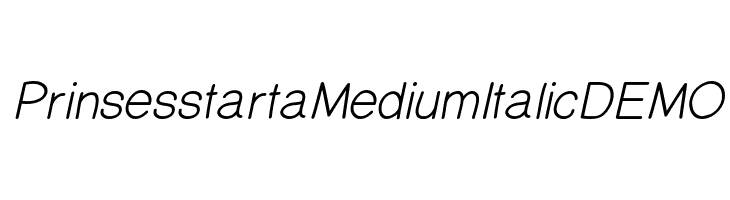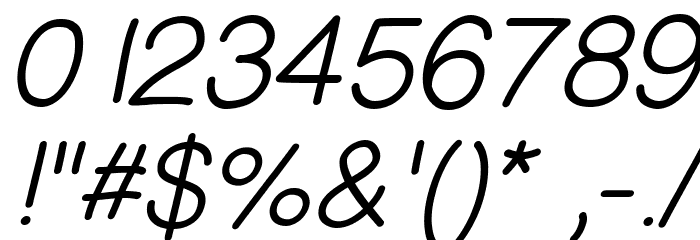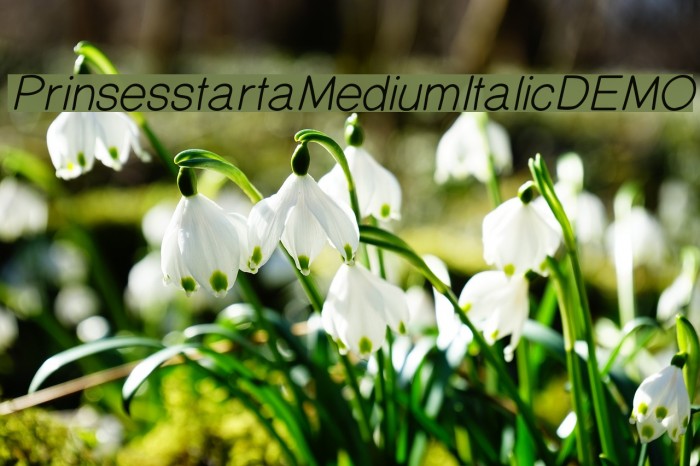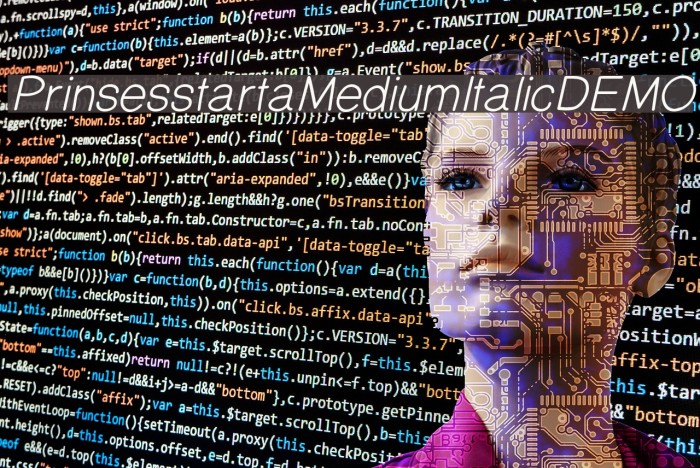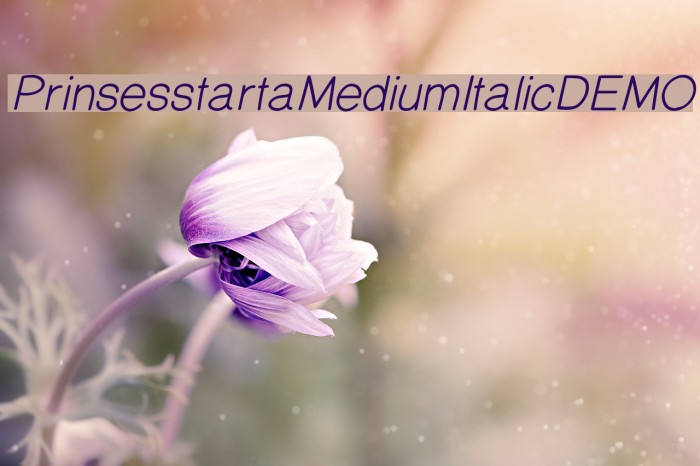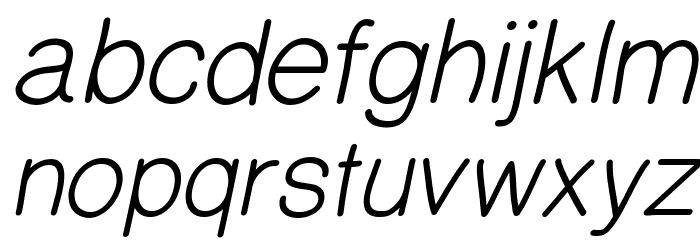
PrinsesstartaMediumItalicDEMO Font
PrinsesstartaMediumItalicDEMO Description
This font features a sleek, modern design with a slight italic slant, giving it a dynamic and elegant appearance. The characters are uniformly thin, contributing to a clean and sophisticated look. The uppercase and lowercase letters maintain a consistent style, with smooth curves and sharp edges that enhance readability. The numbers and special characters are designed to match the overall aesthetic, ensuring a cohesive appearance across all text. This font is versatile, suitable for a variety of design projects that require a touch of modernity and elegance.
A sleek, modern italic font with a clean and elegant design from Handwritten fonts.
- Proposed Projects: Ideal for branding, editorial design, digital interfaces, and advertising materials.